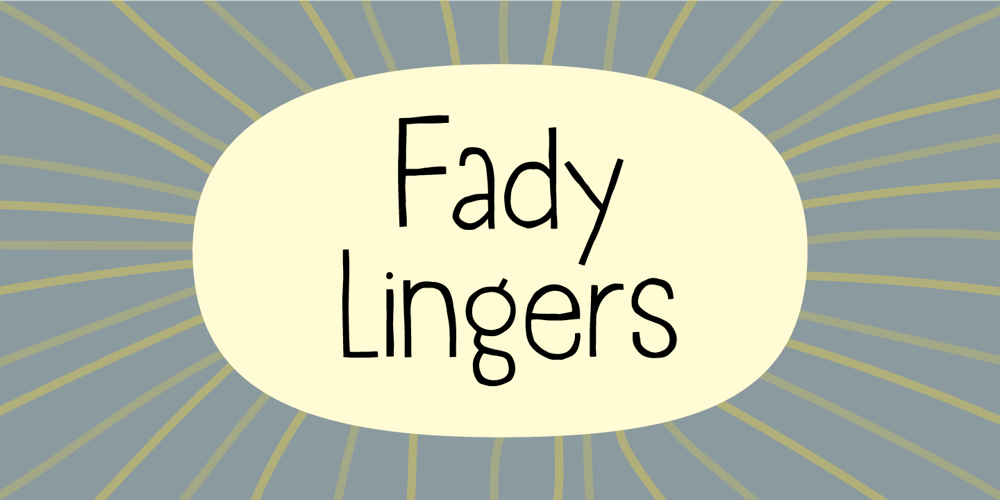
Fady Lingers Font Family was designed by Jakob Fischer and published by PizzaDude.dk. Fady Lingers contains 2 styles and family package options. Fady Lingers is a mispronunciation of that famous Italian cookie – nevertheless, there is nothing awkward or wrong with the font!It is handmade using a thin marker, leaving an uneven edge. I did spend some time cleaning up each letter, but was carefully observant to keep the original handmade and organic look.I’ve added 4 slightly different versions of each lowercase letter. and they automatically changes as you type – a really great way to make your design stand out as organic and lively!